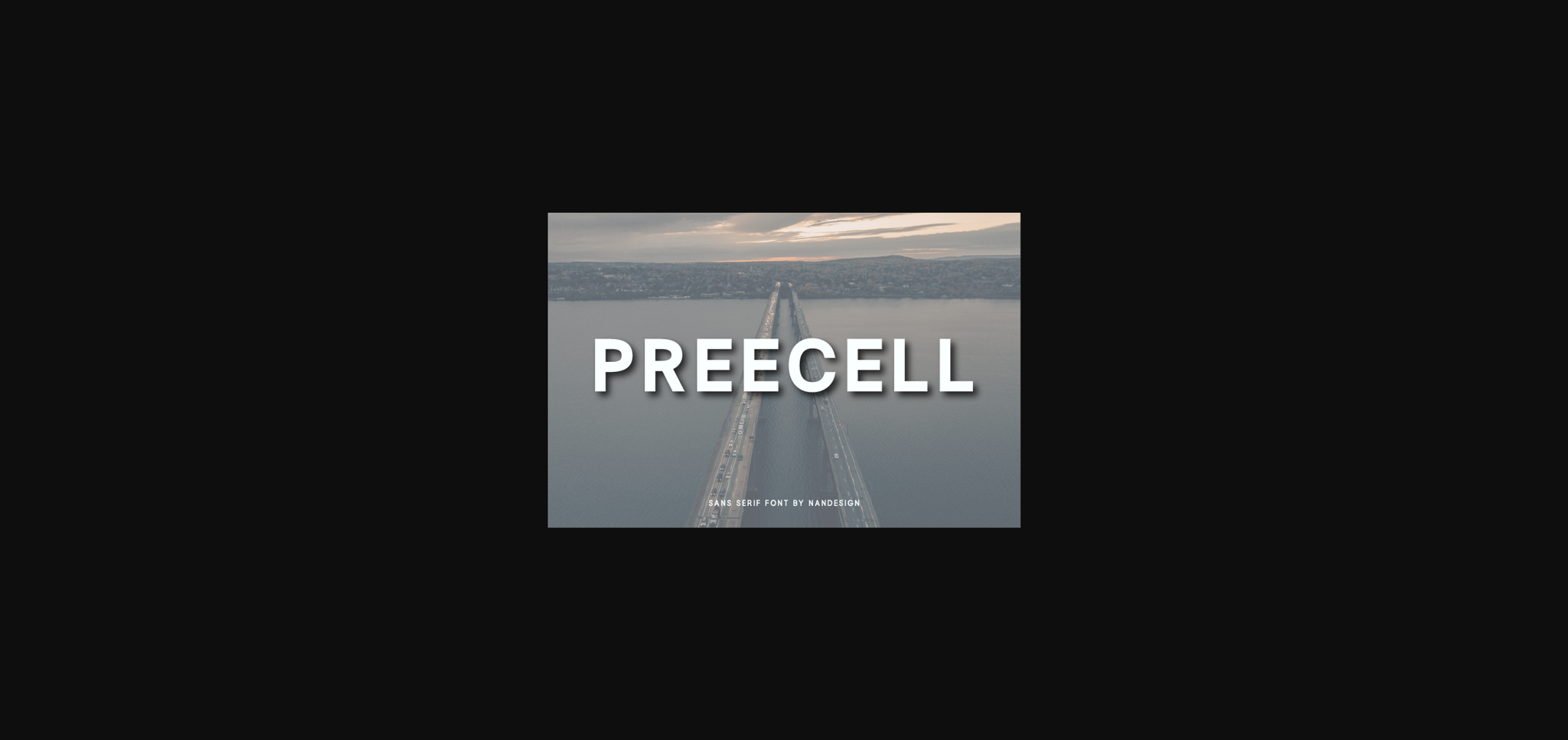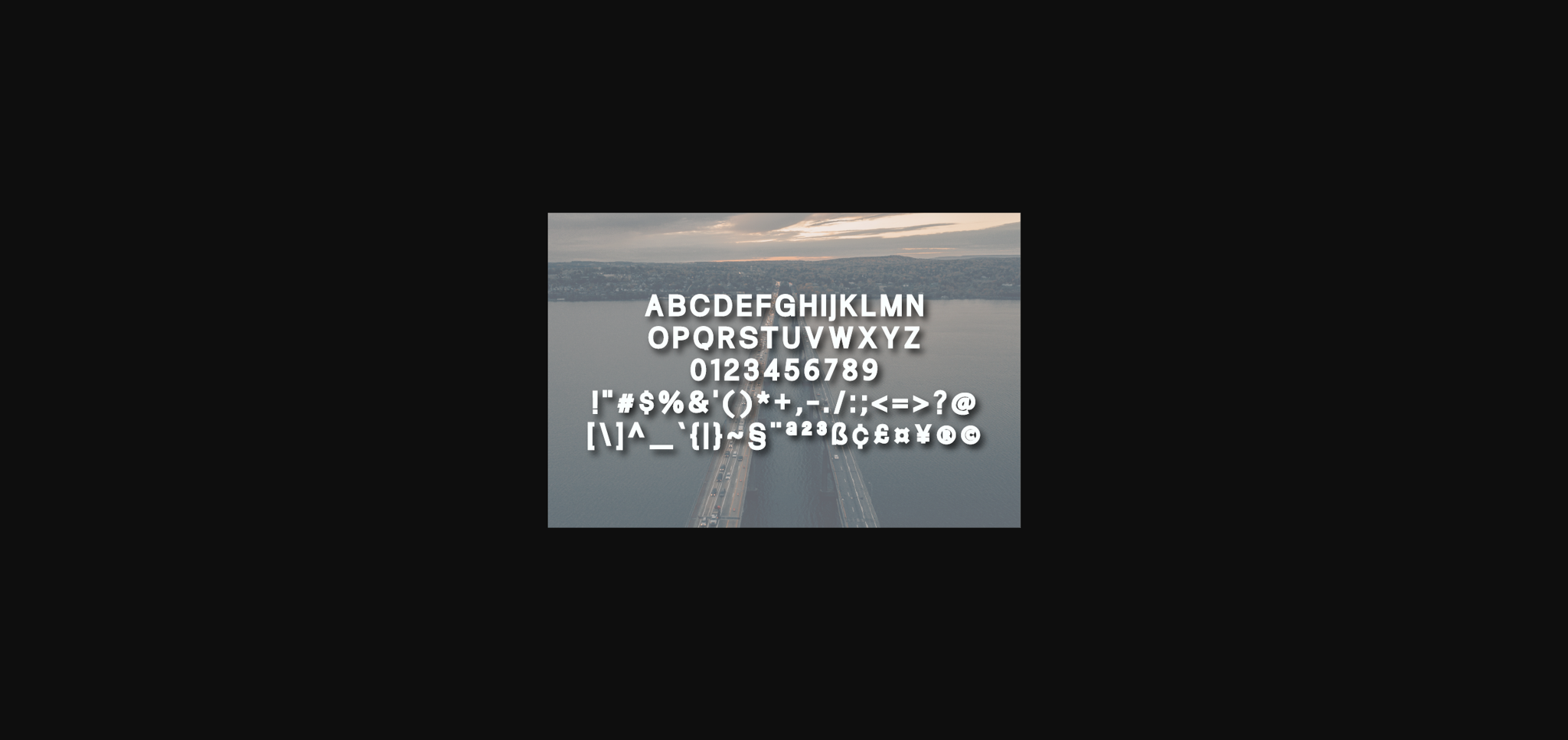
Preecell Font
About Preecell Font
Preecell is a clean and neat lettered sans serif font. This original look will appeal to a wide range of crafty ideas, from letterheads and titles, to stationery.